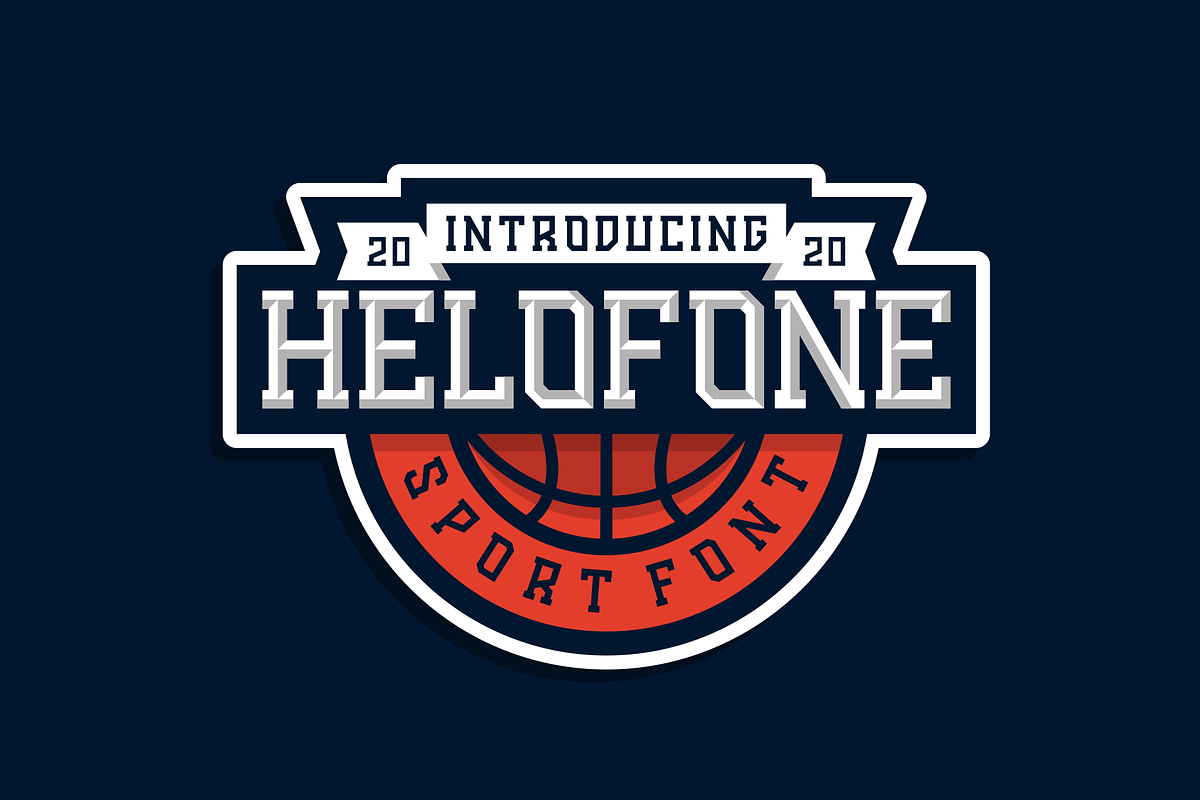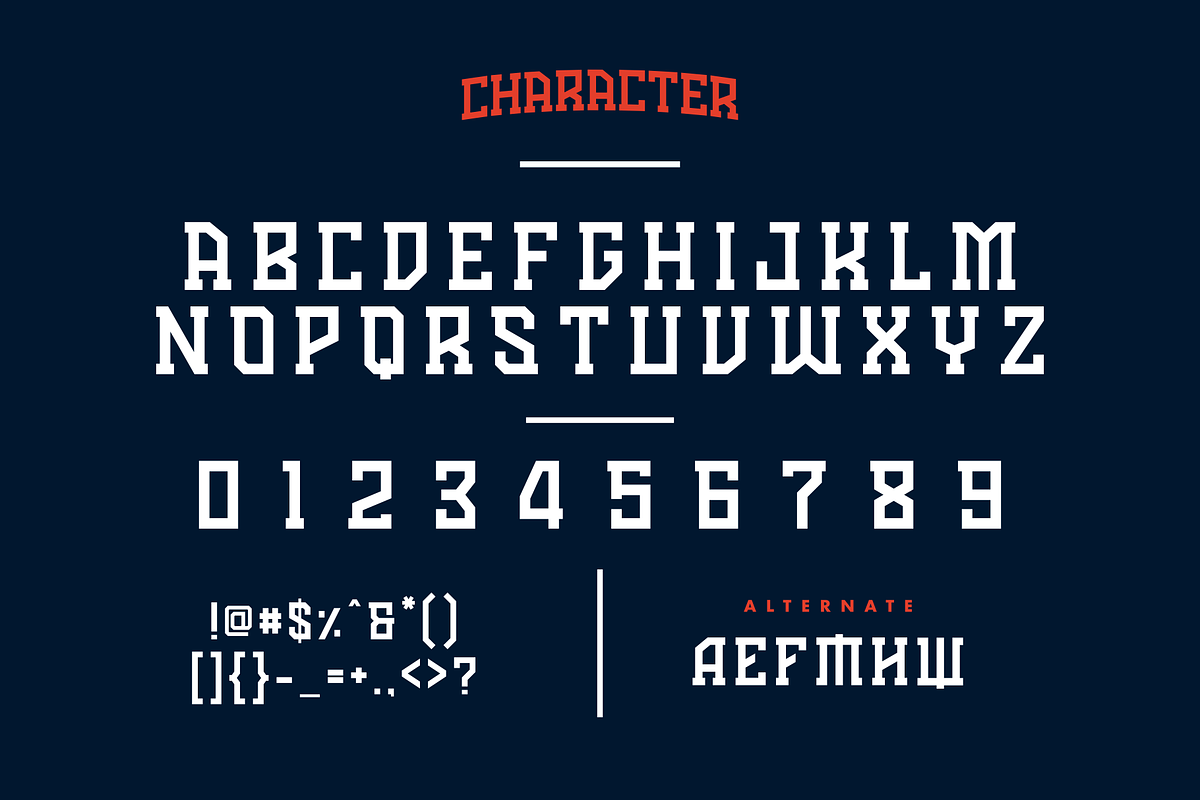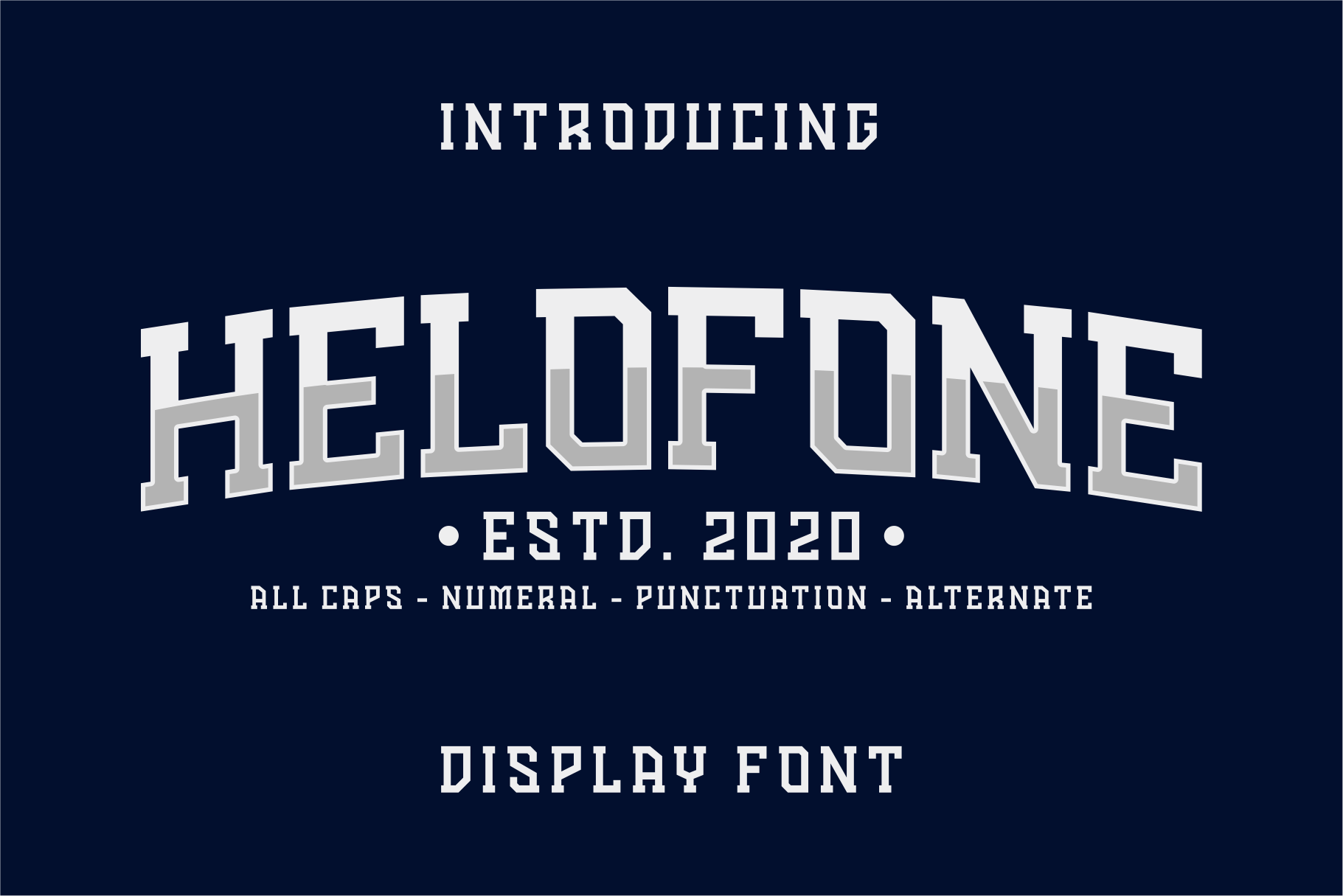
Helofone Sport Font
Helofone is a font designed for sports and gaming segments such as logo design, ticket design, brochure design, jersey and others.
- All Uppercase